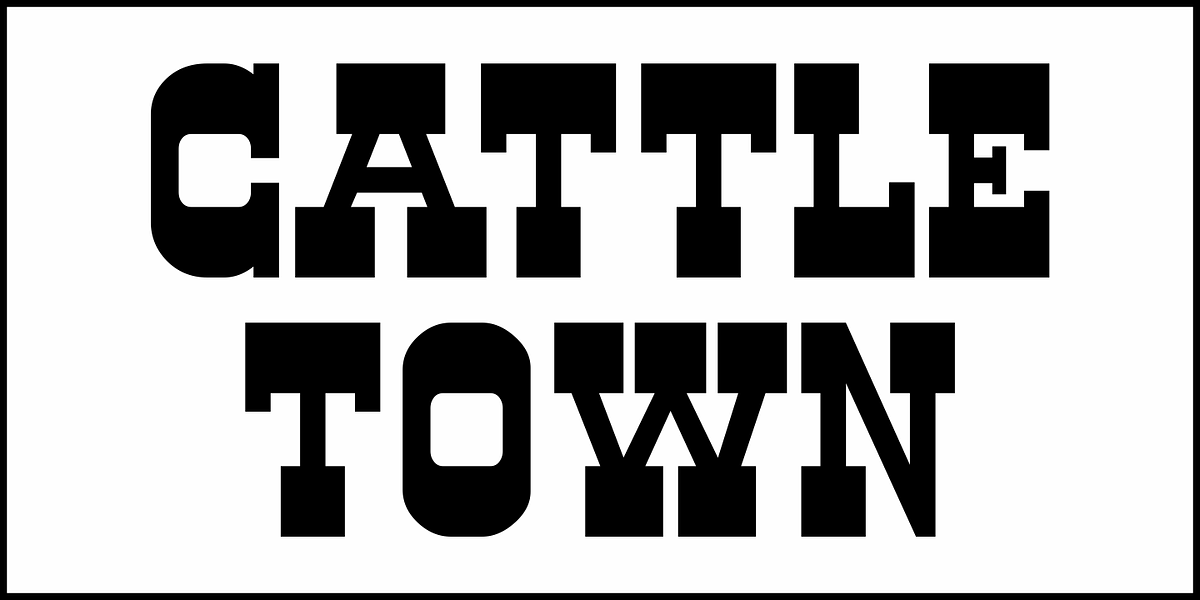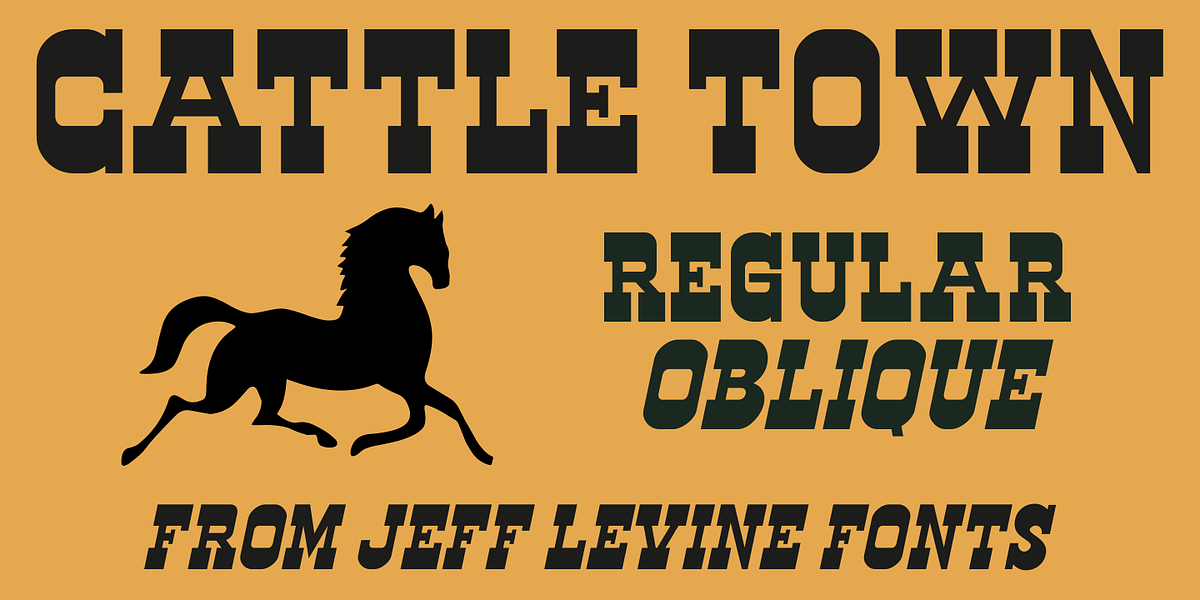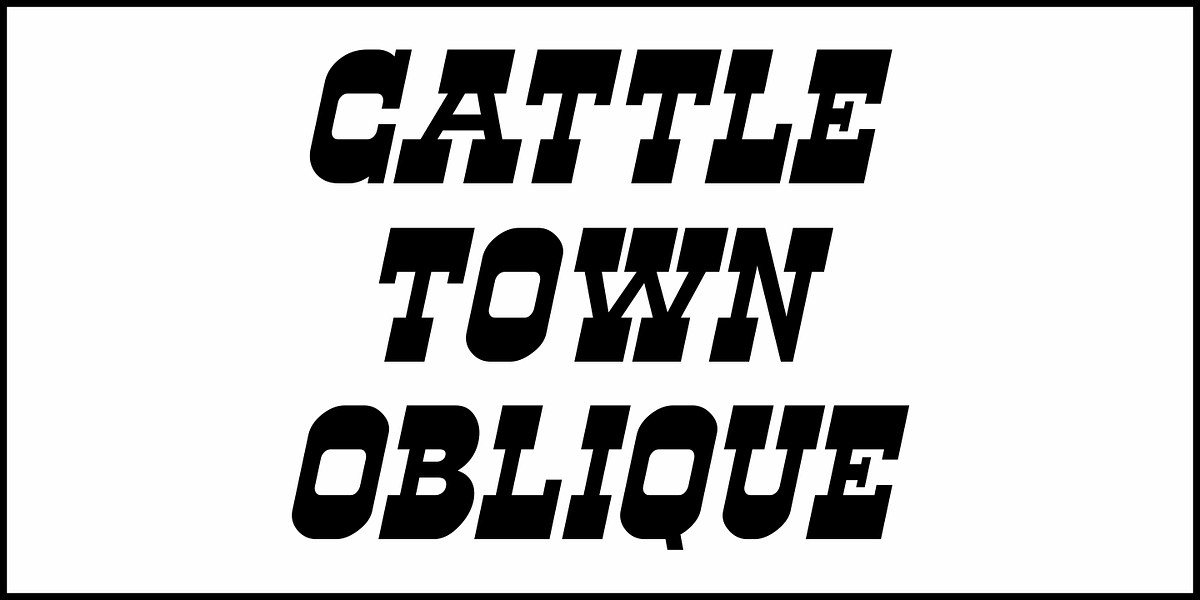
Cattle Town JNL
In the 1946 French lettering book “100 Alphabets Publicitaires” (“100 Advertising Alphabets”) is a hand-lettered “Western” font called “Italian".
This served as the basis for Cattle Town JNL, which is available in both regular and oblique versions.